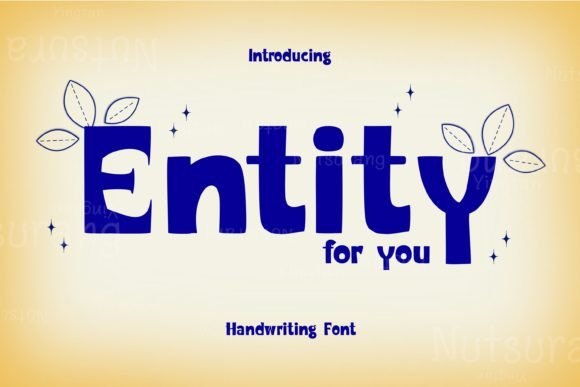
Introducing Entity for You Font: The Ultimate Bold and Modern Display Font
Are you tired of using the same old fonts for your design projects? Look no further! Entity for You Font is here to revolutionize your creative endeavors with its bold and modern display font style. This versatile font is perfect for designers and crafters who want to add a touch of sophistication and elegance to their work.
What Makes Entity for You Font Stand Out?
Entity for You Font is a bold and modern display font that is designed to make a statement. Its unique and stylish lettering makes it perfect for a wide range of design projects, from book covers and product packaging to banners, posters, and more. The font’s bold and eye-catching style ensures that your designs will stand out from the crowd and grab the attention of your audience.
Key Features of Entity for You Font
- Bold and Modern Style: Entity for You Font boasts a bold and modern style that is perfect for designers who want to create striking and memorable designs.
- Versatile and Flexible: This font is highly versatile and can be used for a wide range of design projects, from print materials to digital designs.
- Easy to Read: Despite its bold style, Entity for You Font is easy to read, making it perfect for designs that require a clear and concise message.
- High-Quality Design: The font is designed with high-quality and precision, ensuring that it looks great in any design project.
Uses of Entity for You Font
Entity for You Font is perfect for a wide range of design projects, including:
- Book Covers: Add a touch of sophistication and elegance to your book covers with Entity for You Font.
- Product Packaging: Make your product packaging stand out with this bold and modern display font.
- Banners and Posters: Create eye-catching banners and posters with Entity for You Font that will grab the attention of your audience.
- Digital Designs: Use Entity for You Font in your digital designs, such as social media graphics, website headers, and more.
Tips for Using Entity for You Font
Here are some tips for using Entity for You Font in your design projects:
- Use it as a Headline Font: Entity for You Font is perfect for use as a headline font, where its bold and eye-catching style can make a big impact.
- Pair it with Other Fonts: Experiment with pairing Entity for You Font with other fonts to create a unique and stylish look.
- Use it in Combination with Images: Use Entity for You Font in combination with images to create a visually appealing design.
In conclusion, Entity for You Font is a bold and modern display font that is perfect for designers and crafters who want to add a touch of sophistication and elegance to their work. Its versatile and flexible design makes it perfect for a wide range of design projects, from book covers and product packaging to banners, posters, and more. With its easy-to-read style and high-quality design, Entity for You Font is a must-have font for any designer or crafter looking to take their designs to the next level.